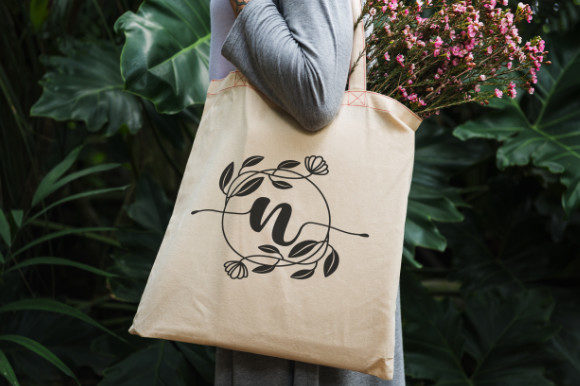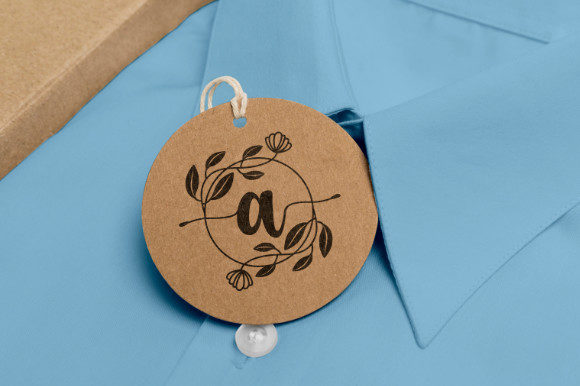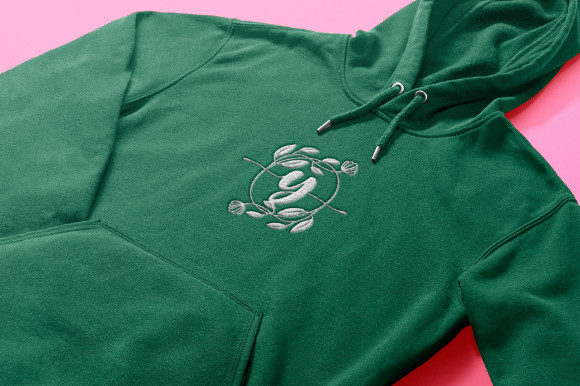
Introduction to Monogram Floral Two Font
Monogram Floral Two is a dainty and elegant decorative font, perfect for personalizing gifts, apparel designs, mugs, wedding invitations, or anything else.